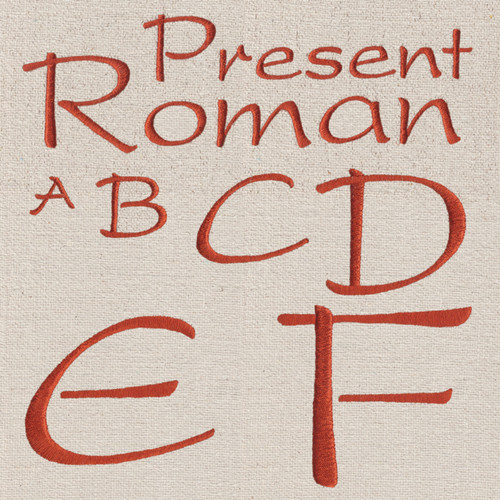
773 Present Roman Satin Font
773 Present Roman Satin Font comes in 0.5", 1", 1.5", 2", 2.5" and 3" heights based on the capital "B"...some letters have ascenders and descenders and are about 30% taller than the base height (see character chart above). All characters are finished in standard Satin Stitch. Includes uppercase letters, lowercase letters, numbers and 13 punctuation marks.